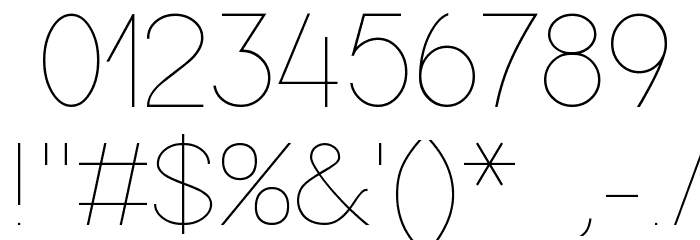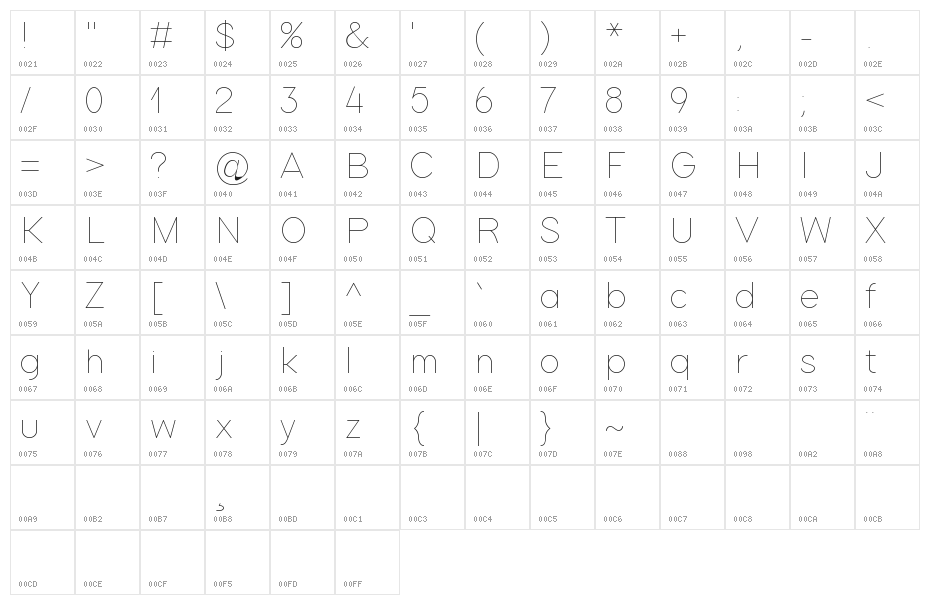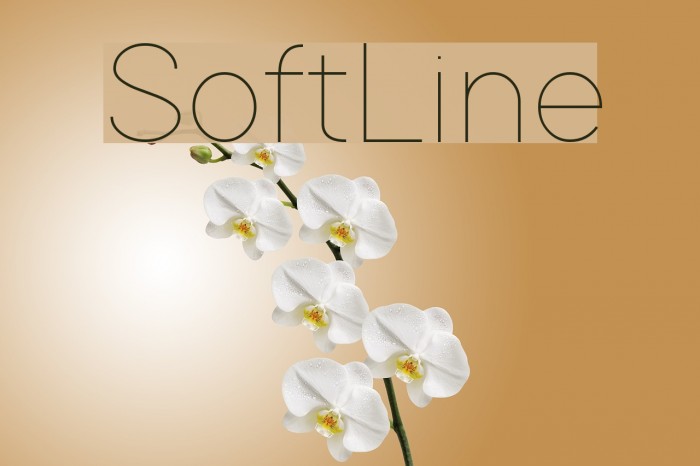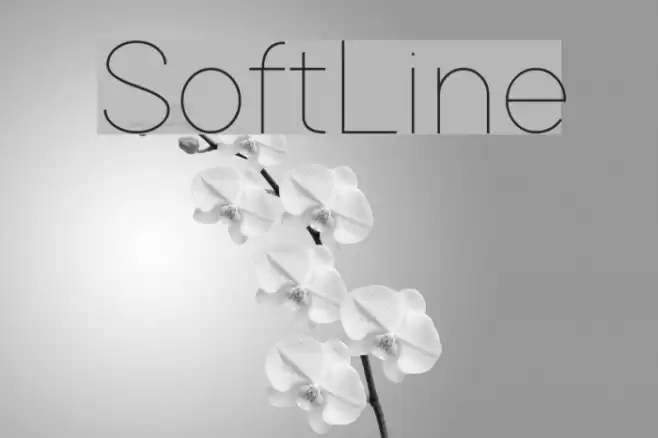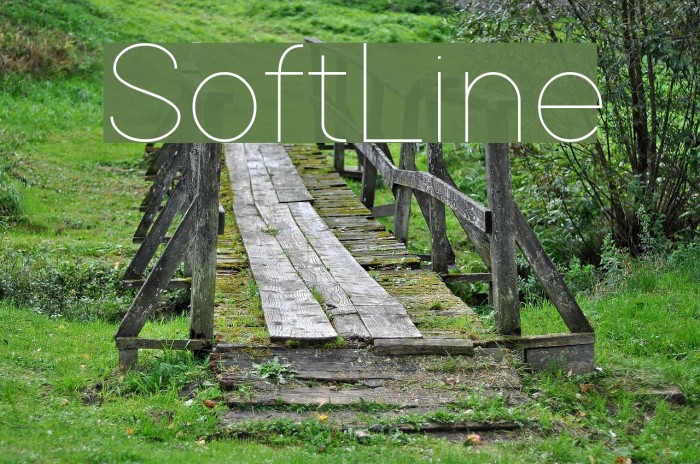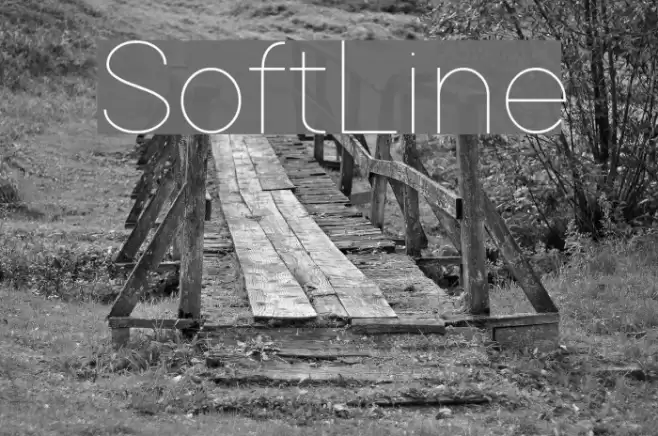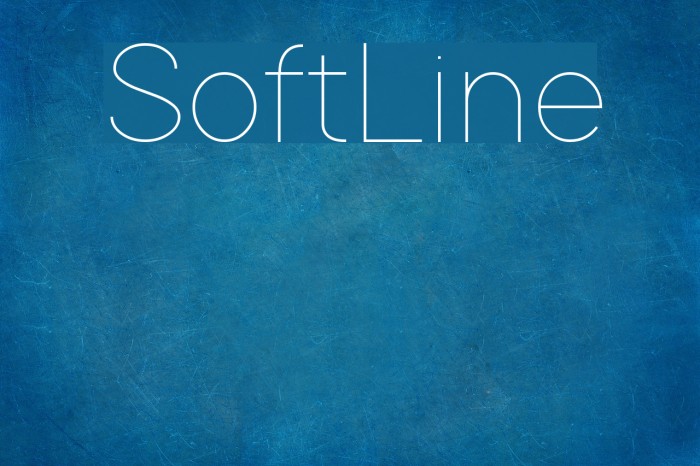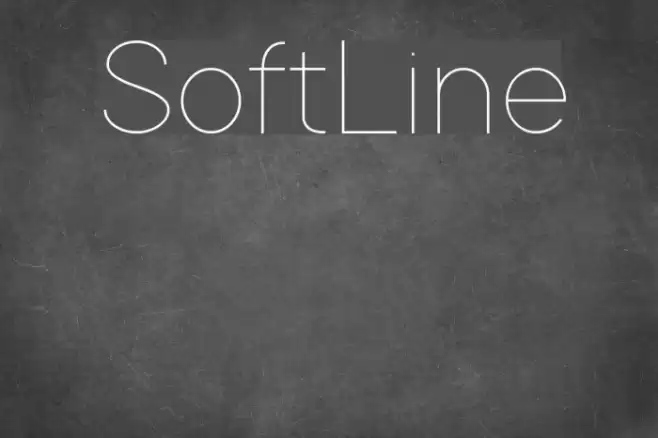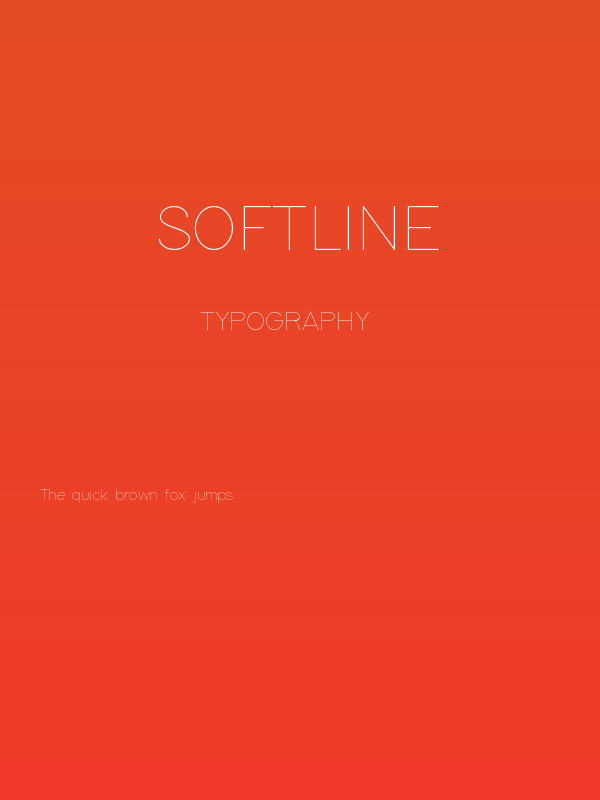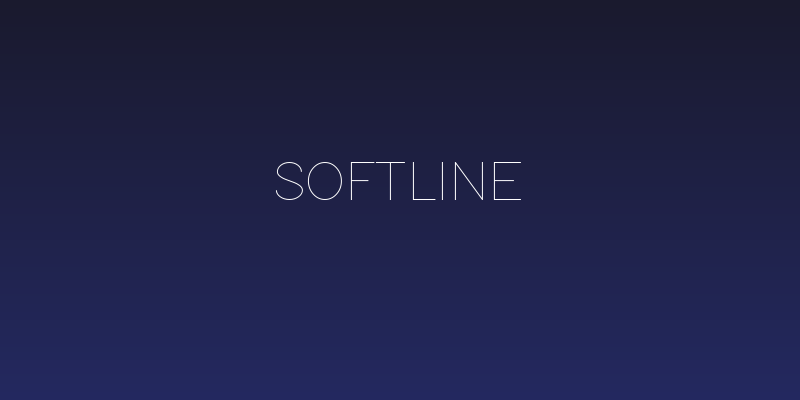
SoftLine Font
SoftLine Description
This font features a clean and modern design with thin, uniform lines that create a sleek and minimalist appearance. The characters are well-proportioned, with a consistent stroke width that gives the font a balanced and harmonious look. The uppercase letters are tall and elegant, while the lowercase letters maintain a smooth and flowing style. The numerals are clear and easy to read, making them suitable for various applications. Special characters are included, enhancing the font's versatility. Overall, the font exudes a contemporary and sophisticated feel, ideal for projects that require a touch of elegance and simplicity.
Use CaseHeadlines, Body text, Logos
Proposed ProjectsIdeal for branding, editorial design, websites, and minimalist graphic design projects.